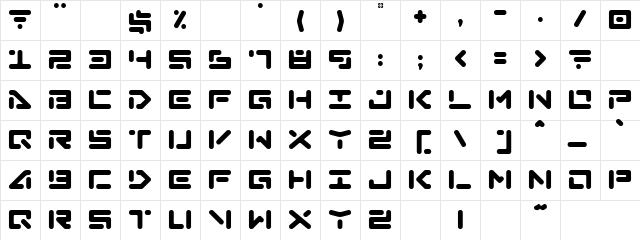
standard Jeme Regular
Design Context for standard Jeme Typeface
standard Jeme is a composed and adaptable typeface that performs quietly and consistently across a wide range of design contexts.